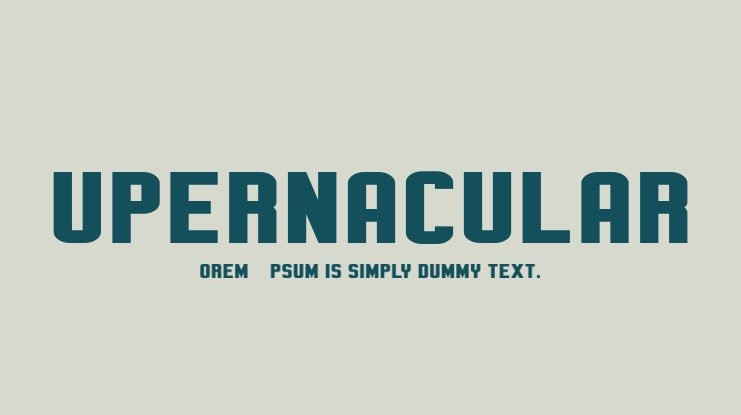
Supernacular Sans Display Font, This font is the perfect way to add style and flair to your designs! The unique, sophisticated shapes and amazing mix of shapes in this font will automatically add a touch of class and sophistication. ideal for use in greeting cards, posters, product packaging, or just to add a little flair to your designs. Its simplicity will make it easy to read and you can use it anywhere you like. Grab your copy now and start making the most of it today!
Supernacular Font
| Designer Name: | Out of Step Font Company |
| Classification: | Display Fonts, Sans Serif Fonts |